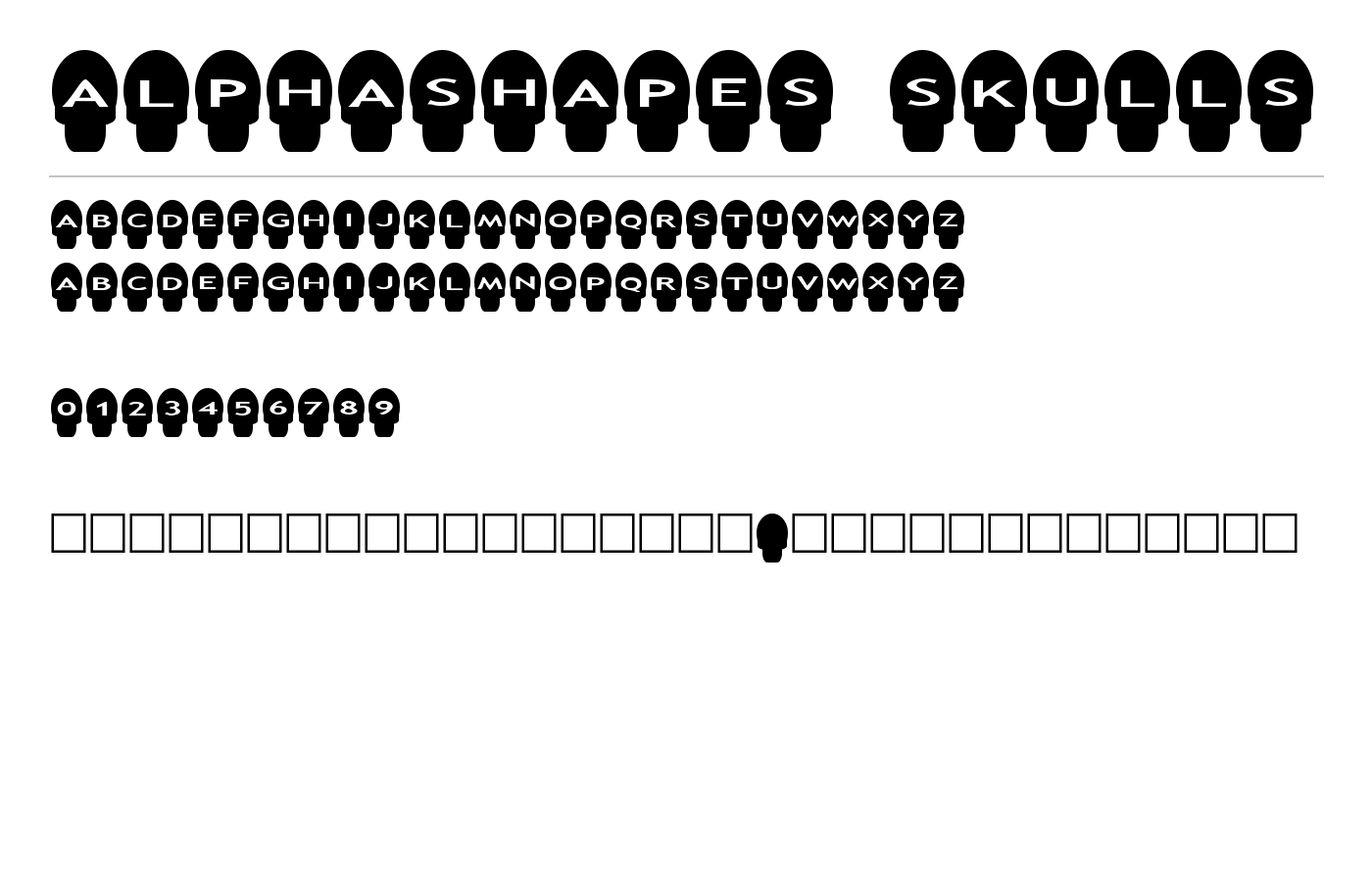
AlphaShapes Skulls is a bold, decorative display font featuring uppercase letters and numbers enclosed within solid black skull shapes. Its playful yet slightly edgy design makes it perfect for eye-catching headlines, themed posters, and creative branding where a strong, fun, and spooky personality is desired. This font works best in large sizes where its unique skull outlines can stand out and create memorable visual impact.
AlphaShapes skulls Font
About AlphaShapes skulls Font
| Font family | AlphaShapes skulls Font |